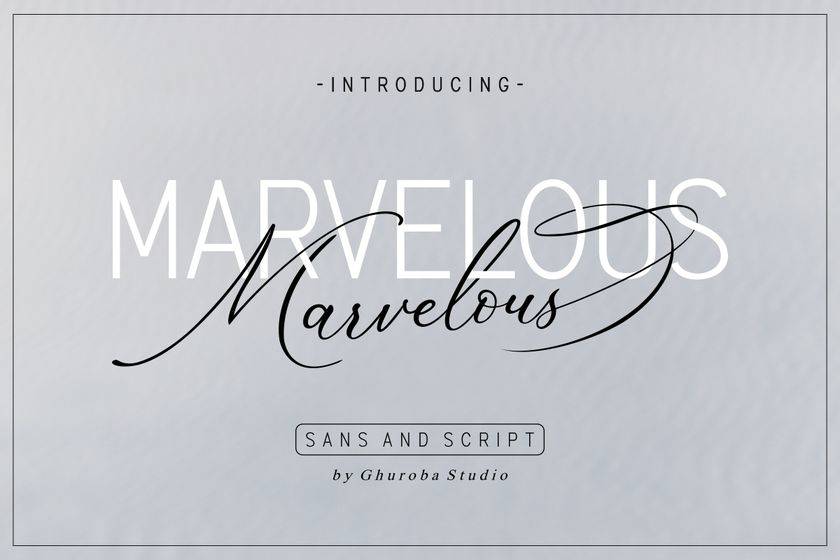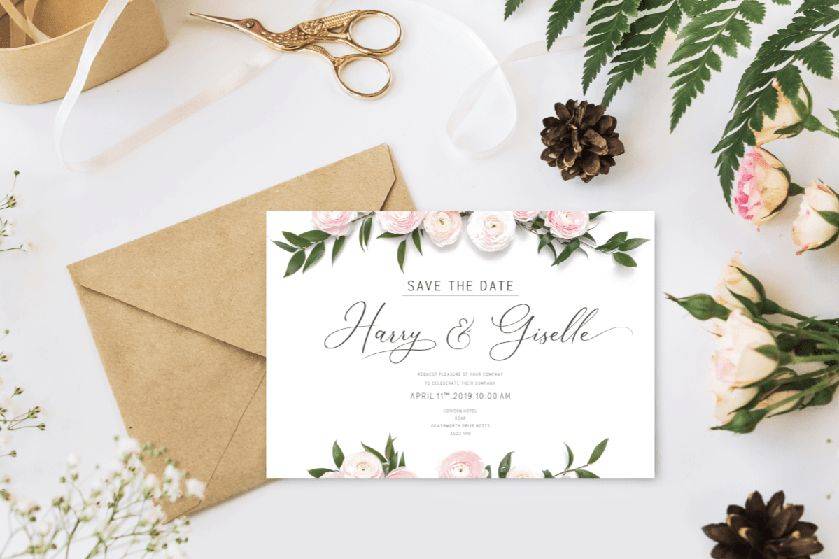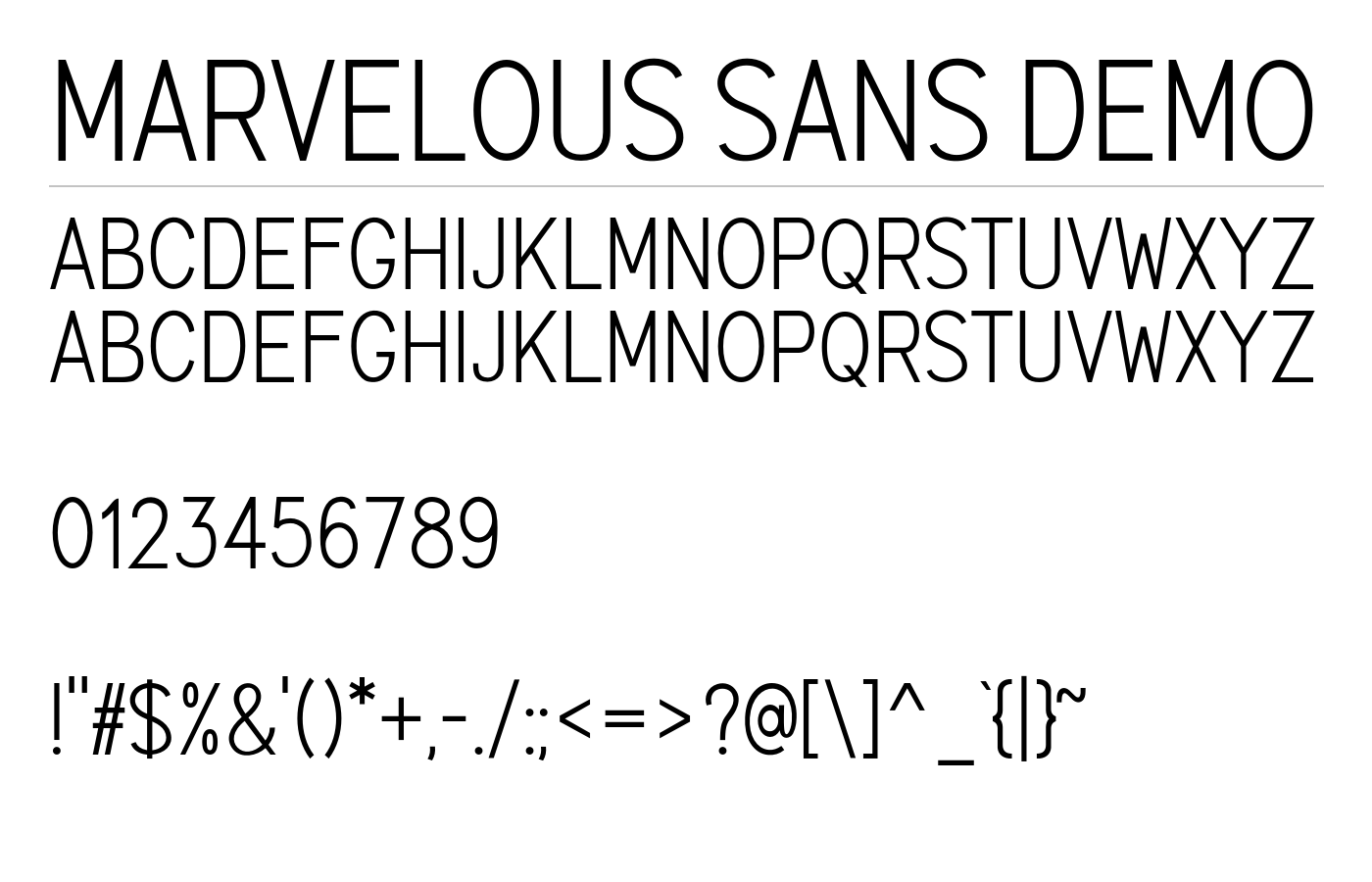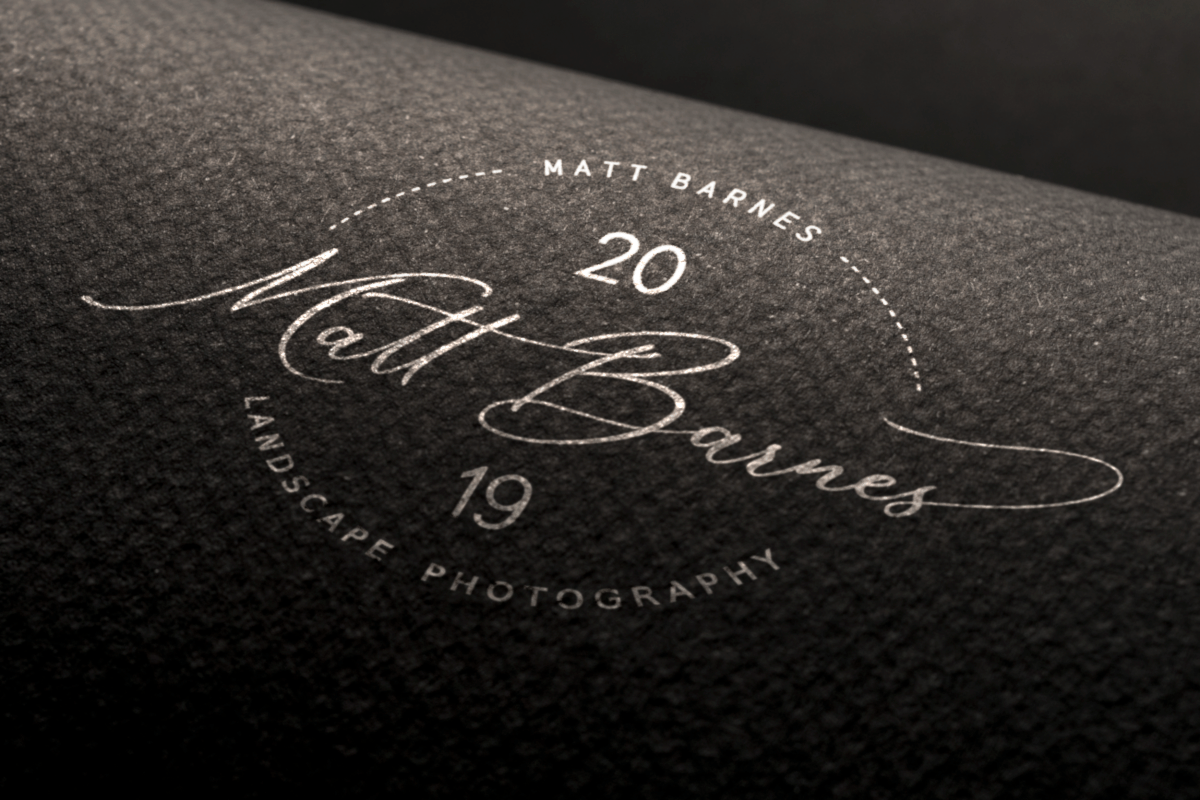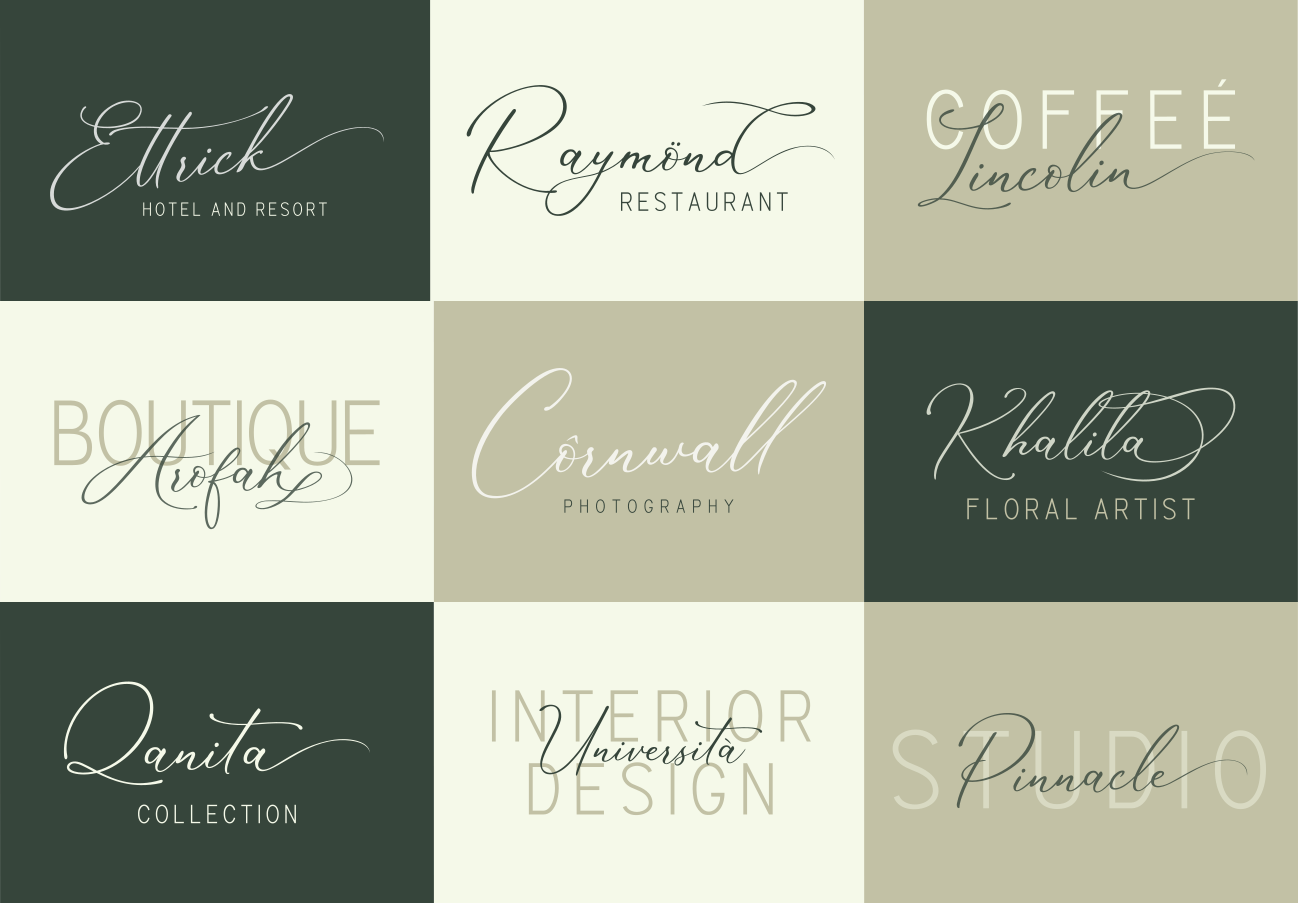
The Marvelous Font Duo is a clean, modern sans serif with a tall, narrow structure and a light stroke weight that gives it an elegant, minimalist feel. Its consistent stroke width and geometric letterforms make it highly readable and versatile, perfect for sleek branding, editorial headlines, and contemporary web design. This font’s refined simplicity conveys professionalism and style, making it ideal for designers seeking a fresh yet understated typeface.
The Marvelous Font Duo
About The Marvelous Font Duo
| Font family | The Marvelous Font Duo |
| Release date | 2019-03-02 |
| Designer | Ghuroba Design Studio |